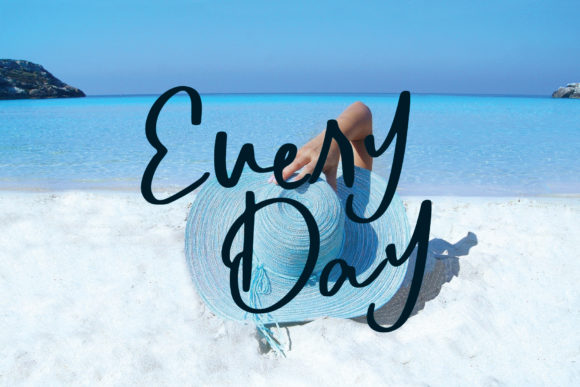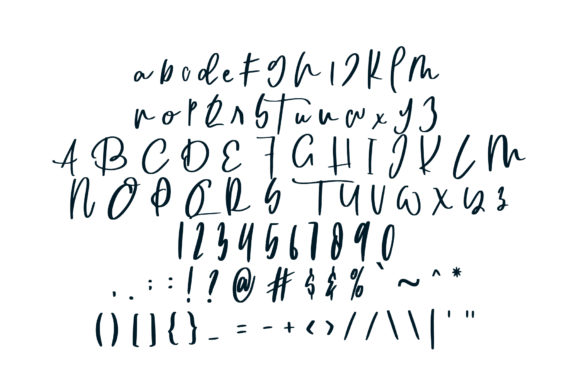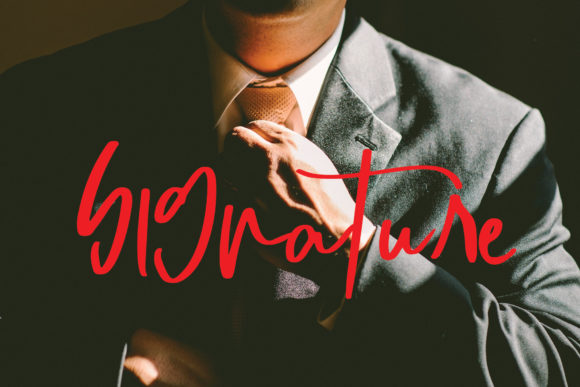
Midnight Font
About Midnight Font
Midnight is a stunning script font that radiates authenticity in every stroke and curve. This unique signature font will add an elegant vibe to any design idea!